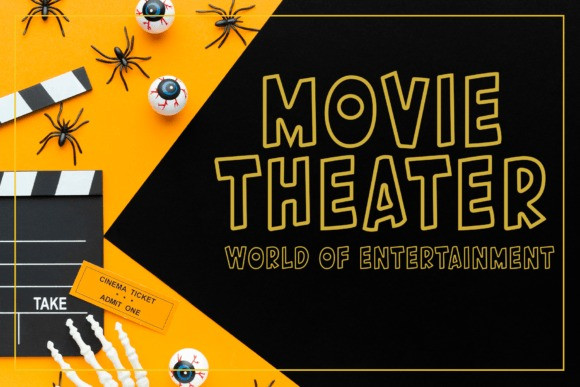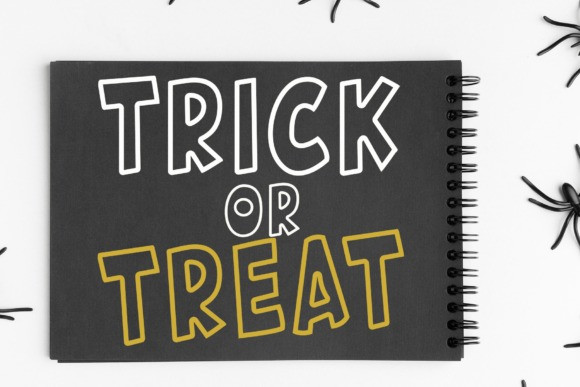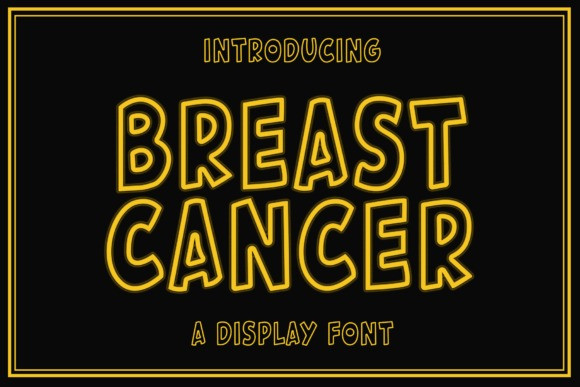
Breast Cancer Font
Breast Cancer Font is a delightfully spooky typeface that embodies the playful essence of Halloween. With its eerie, yet whimsical lettering, this font is perfect for adding a touch of creepy fun to your Halloween-themed designs. Whether you’re creating party invitations, haunted house flyers, or chilling social media posts, Breast Cancer font will cast a spell of excitement over your text.